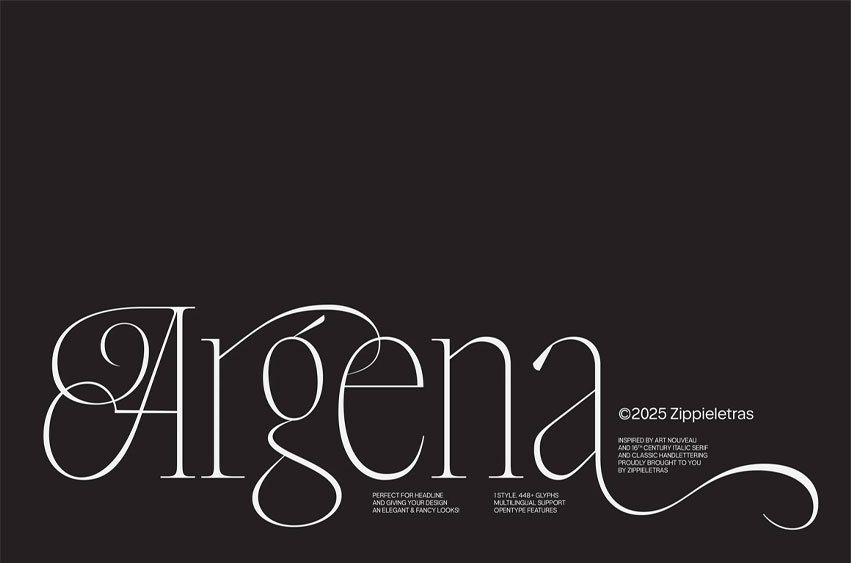
Argena Font is a luxury serif typeface crafted for premium branding, creative agency, editorial layouts, and high-end design. Inspired by the romantic curves of Art Nouveau and the graceful flow of French italic lettering, Argena combines thin elegant strokes with refined proportions to create a truly sophisticated display serif.
Its smooth, expressive forms give every word a sense of exclusivity, making it ideal for luxury logo, boutique brand identities, modern packaging, magazine headlines, fashion campaigns, and creative studio websites. Argena’s signature swash alternates add dramatic elegance, giving designers a powerful way to elevate titles, monograms, and premium visual identities.
Feels Like:
- Luxury fashion and beauty branding
- Parisian creative agency identity
- Art Nouveau–inspired editorial spreads
- Boutique packaging and premium labels
- Elegant website headlines and monograms
Best For:
- Luxury brand identity
- Logo and stylish wordmarks
- Creative agency
- Editorial layouts and magazine covers
- Posters, print products, and packaging
- Elegant website headers and hero typography
Argena Font Preview